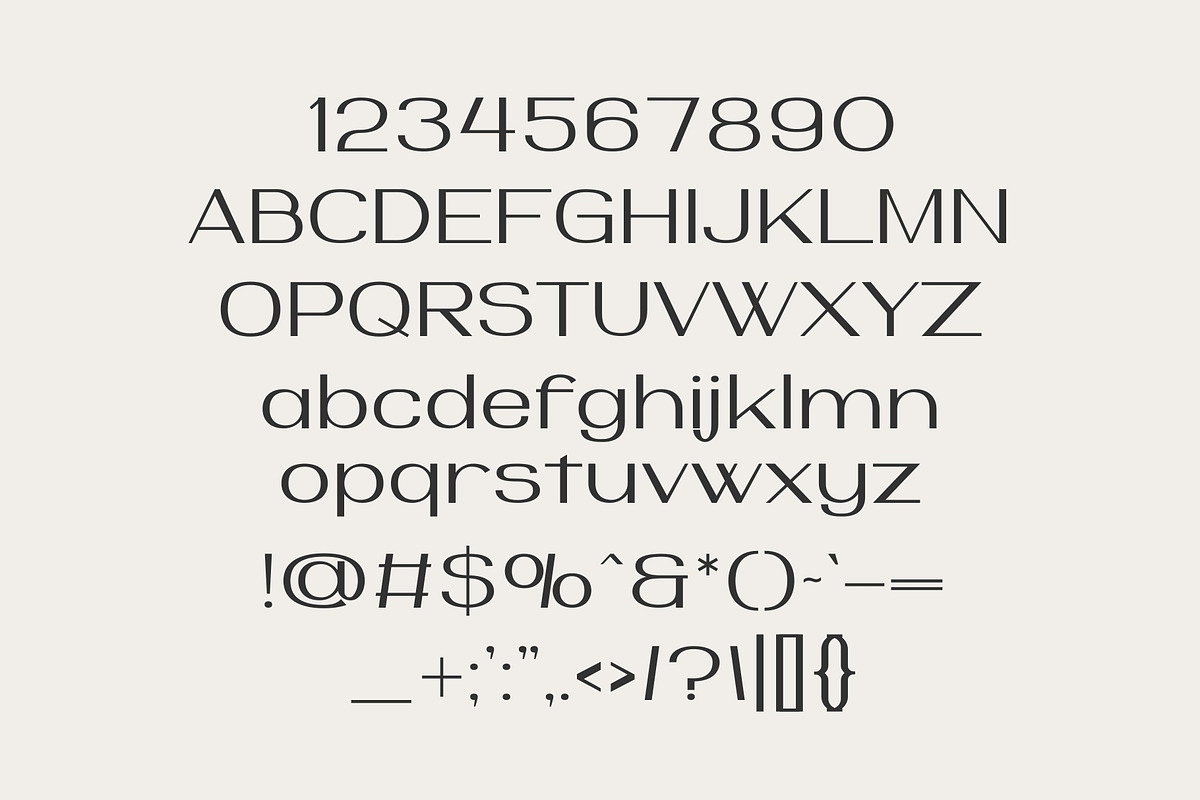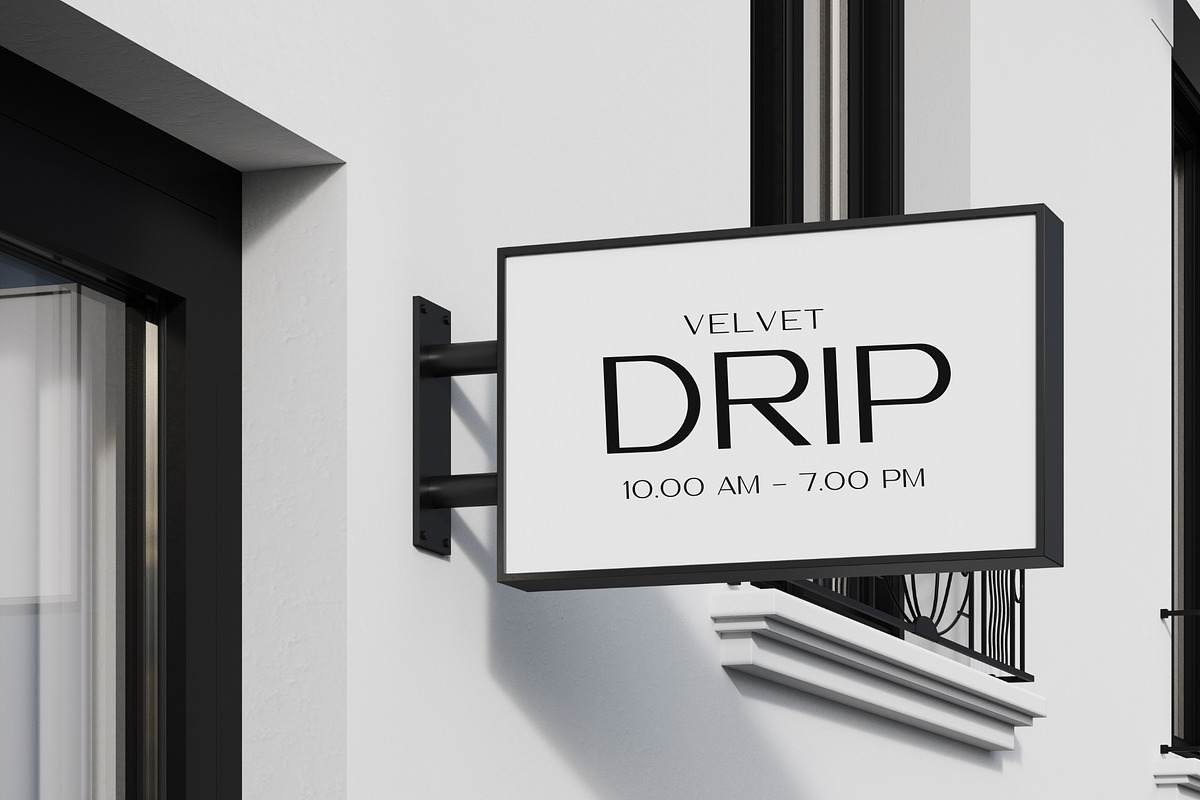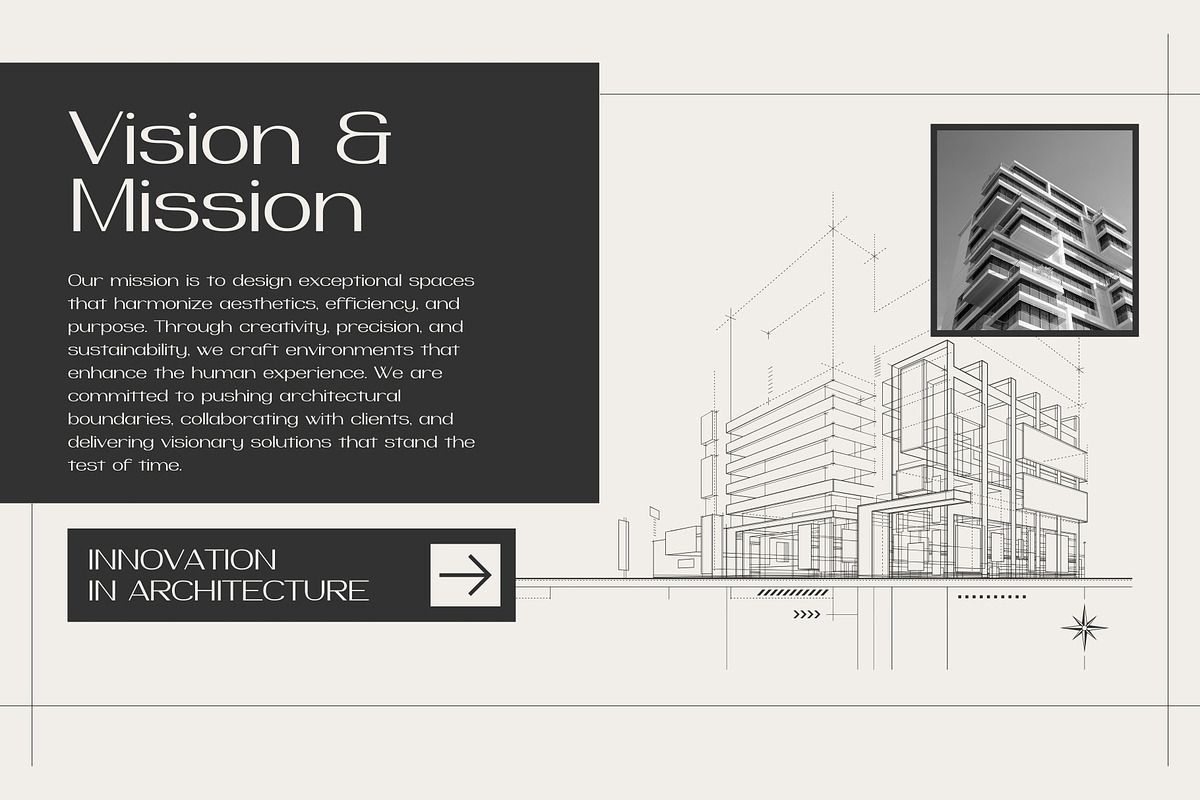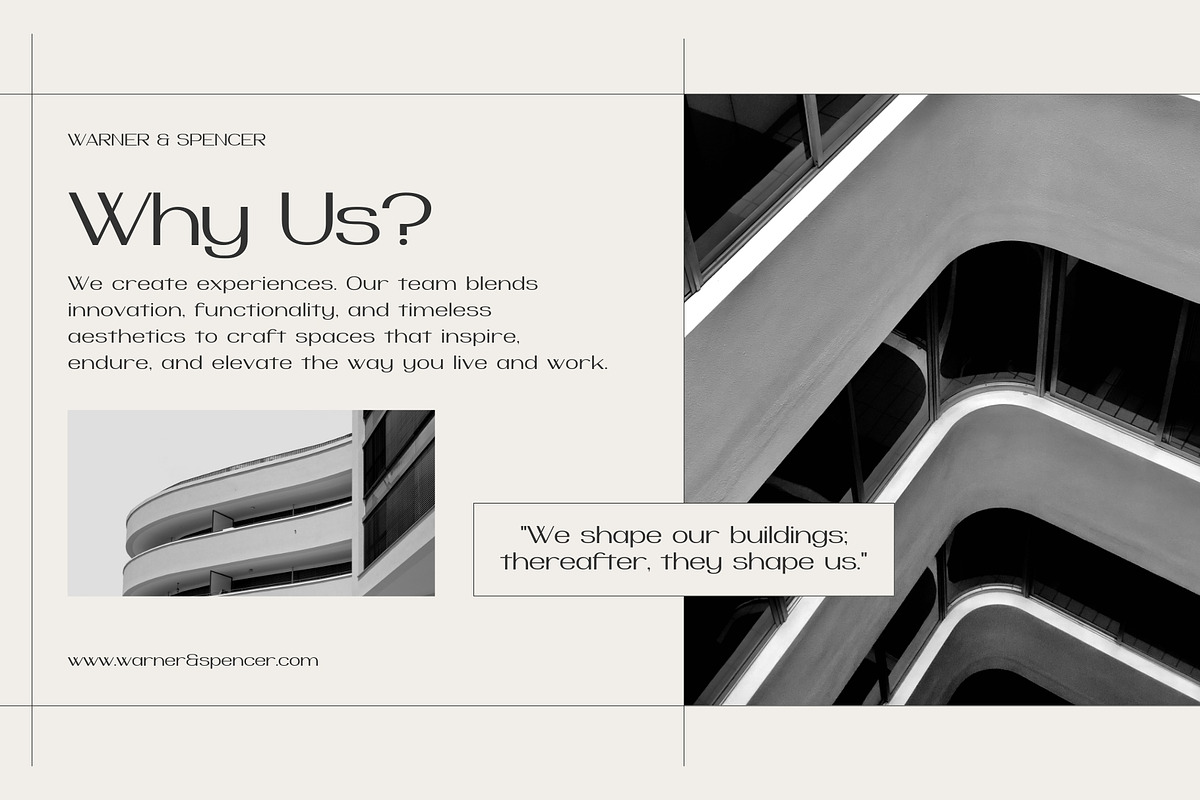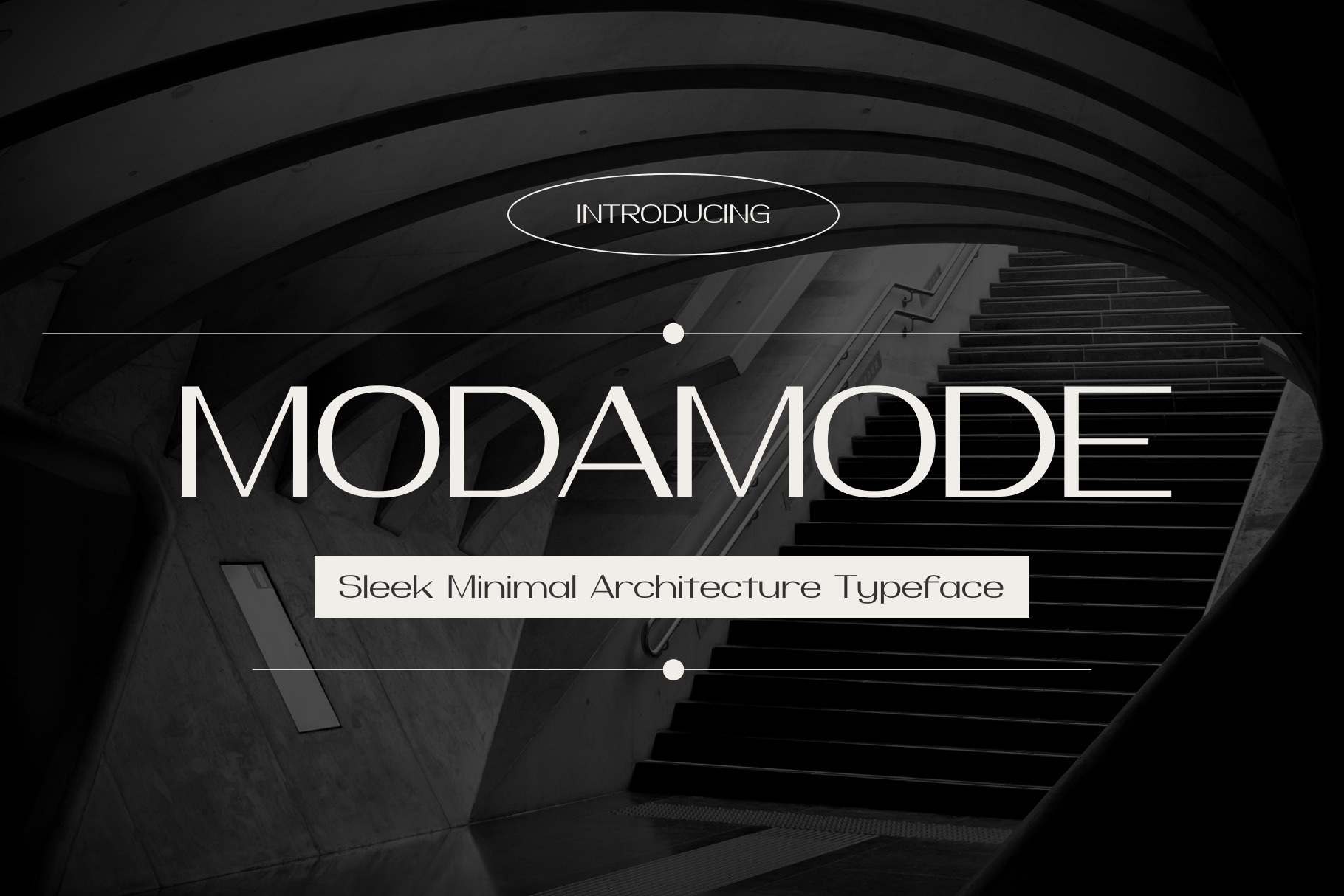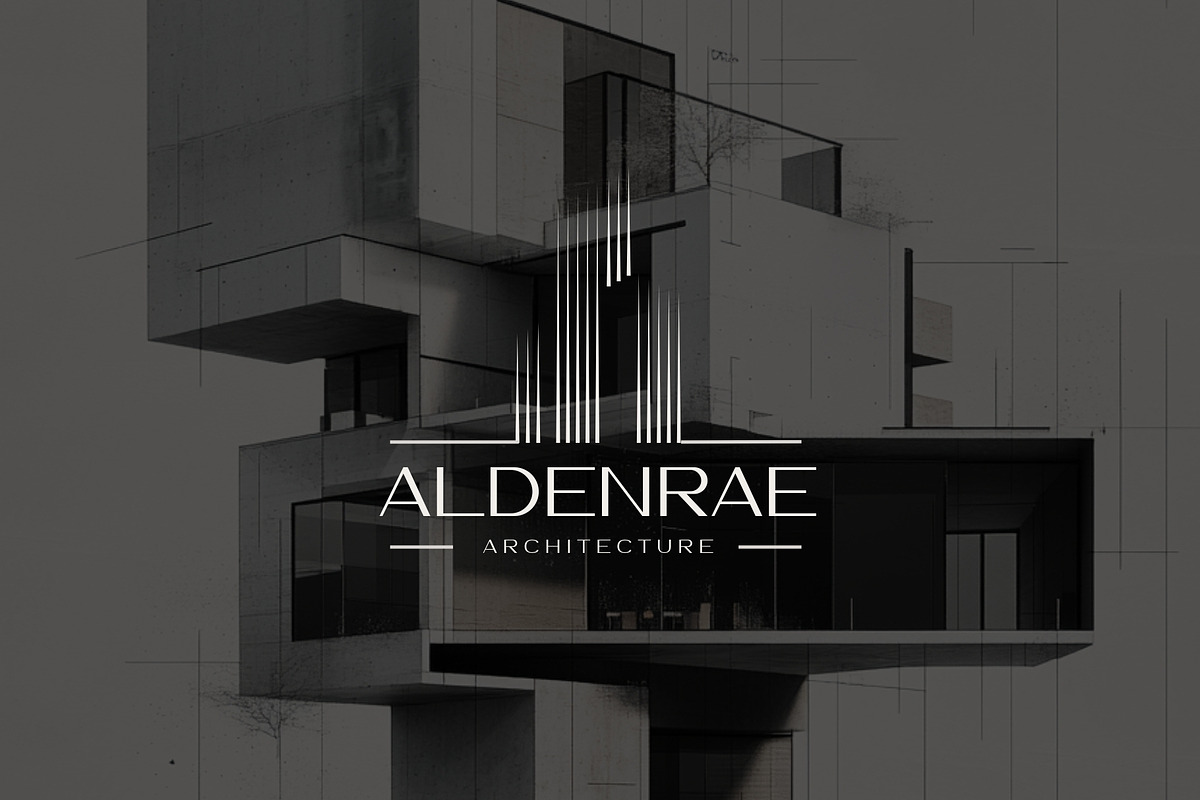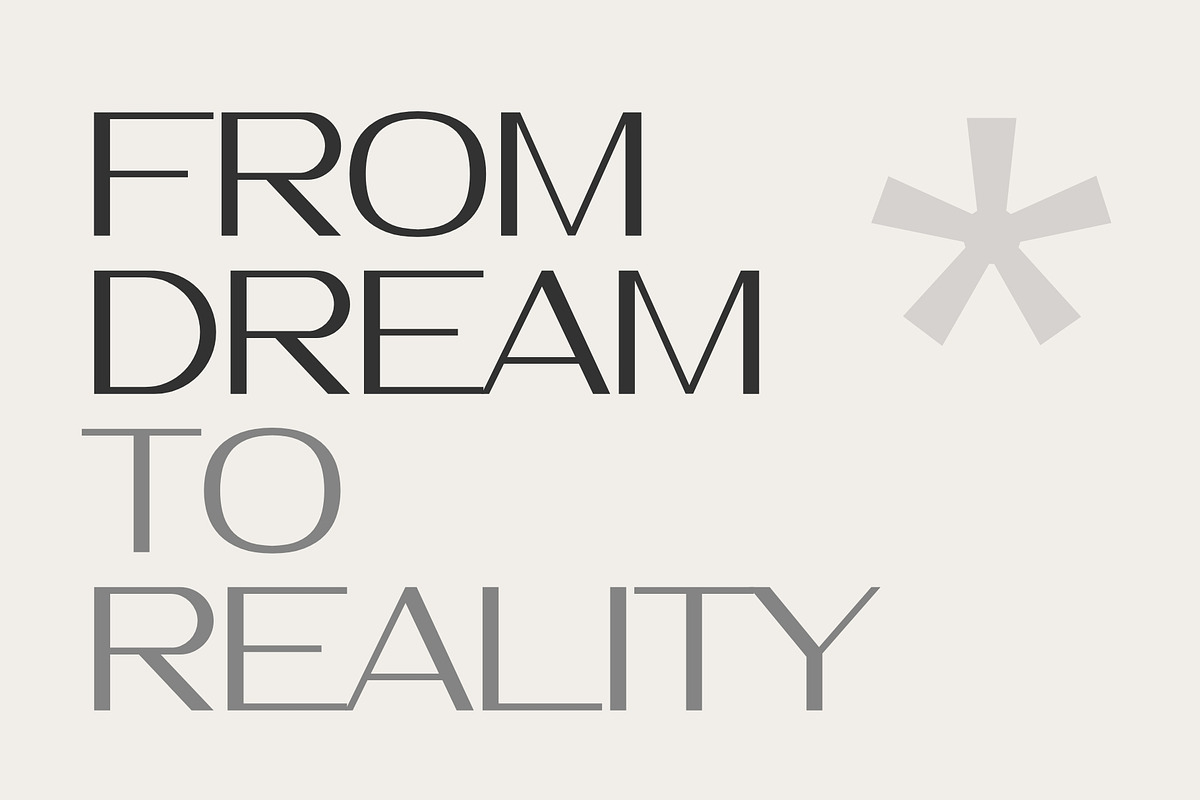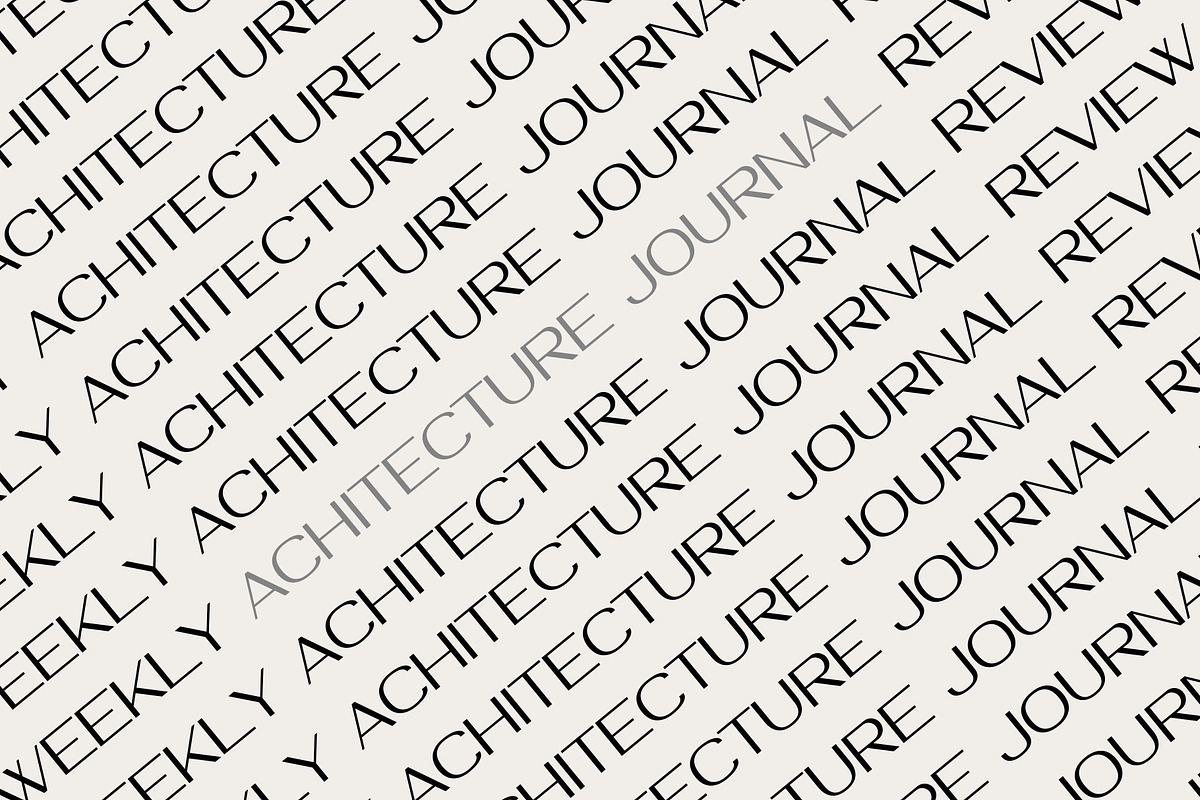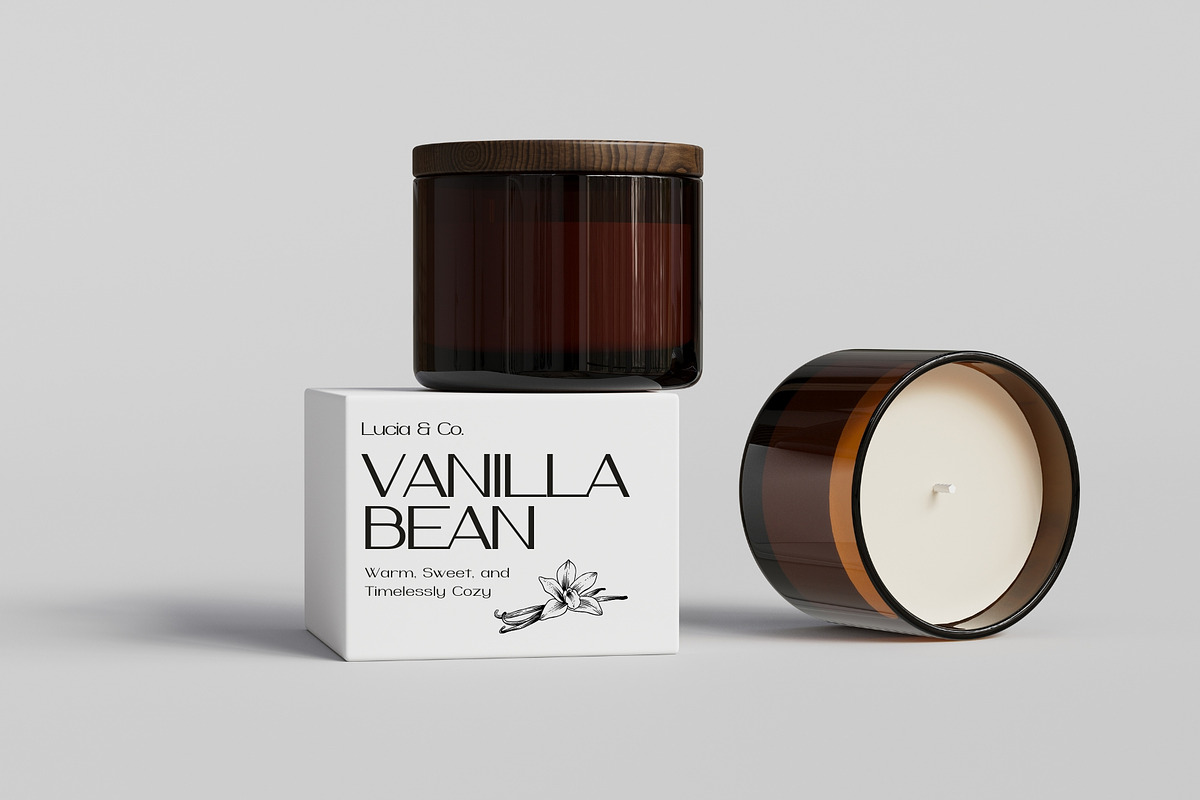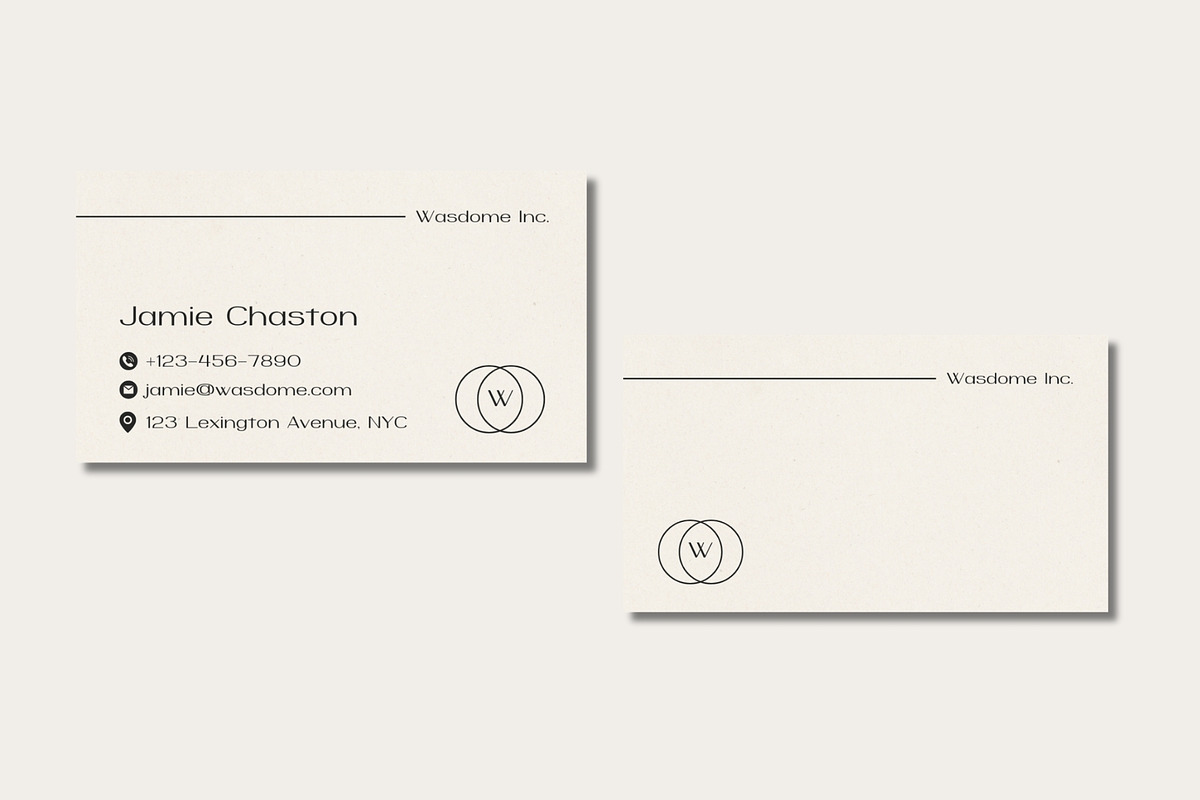
Modamode – Architecture Typeface
Introducing Modamode, a refined typeface where modern architecture meets high fashion. With its sleek, minimalistic design and precise letterforms, Modamode embodies the sophistication of contemporary structures while exuding an effortless sense of luxury. Designed for those who appreciate clean aesthetics and timeless elegance, this typeface is perfect for architecture firms, fashion brands, upscale editorials, and high-end branding projects.
Crafted with geometric precision and subtle refinement, Modamode offers a perfect balance of form and function. Whether you're designing a striking logo, an elegant magazine layout, or an exclusive brand identity, this typeface will elevate your project with a touch of modern sophistication.
- Minimalist, architecture-inspired design
- Perfect for luxury branding, fashion, and editorial projects
- Clean, sleek letterforms with timeless appeal
- Ideal for high-end signage, packaging, and corporate identity
Elevate your designs with Modamode—a typeface that captures the essence of modern elegance.